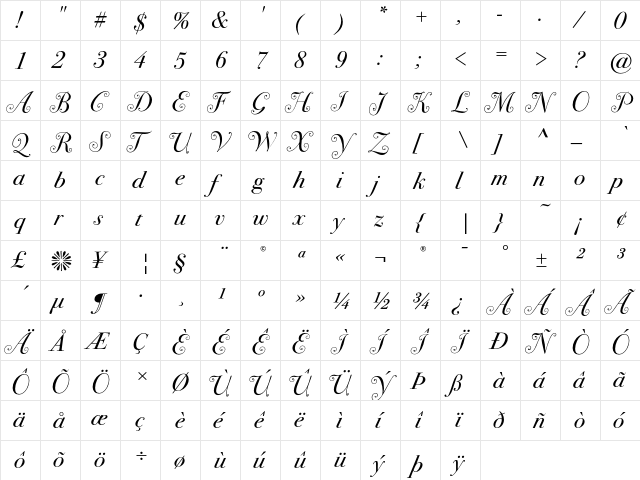
Bodoni Sev Swash ITC Book Italic
Design Context for Bodoni Sev Swash ITC Typeface
Bodoni Sev Swash ITC brings a calligraphic fluidity to the page — its connecting strokes and expressive curves give it an unmistakably human quality.
Font Pairing: Combine Bodoni Sev Swash ITC with a simple geometric sans for maximum contrast — the tension between flowing curves and clean structure is a classic typographic pairing.
Pro Tip: Pair Bodoni Sev Swash ITC with a clean sans-serif for supporting text. The contrast between fluid script and geometric structure creates an elegant typographic hierarchy.